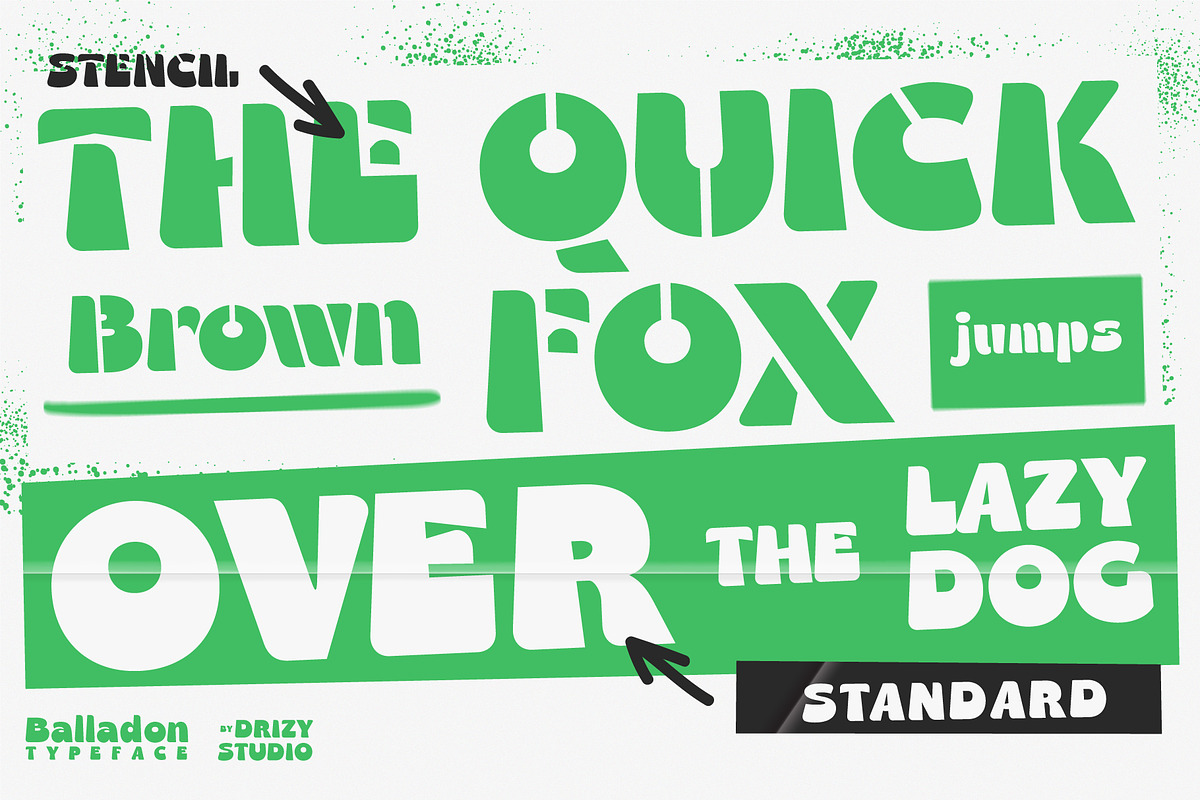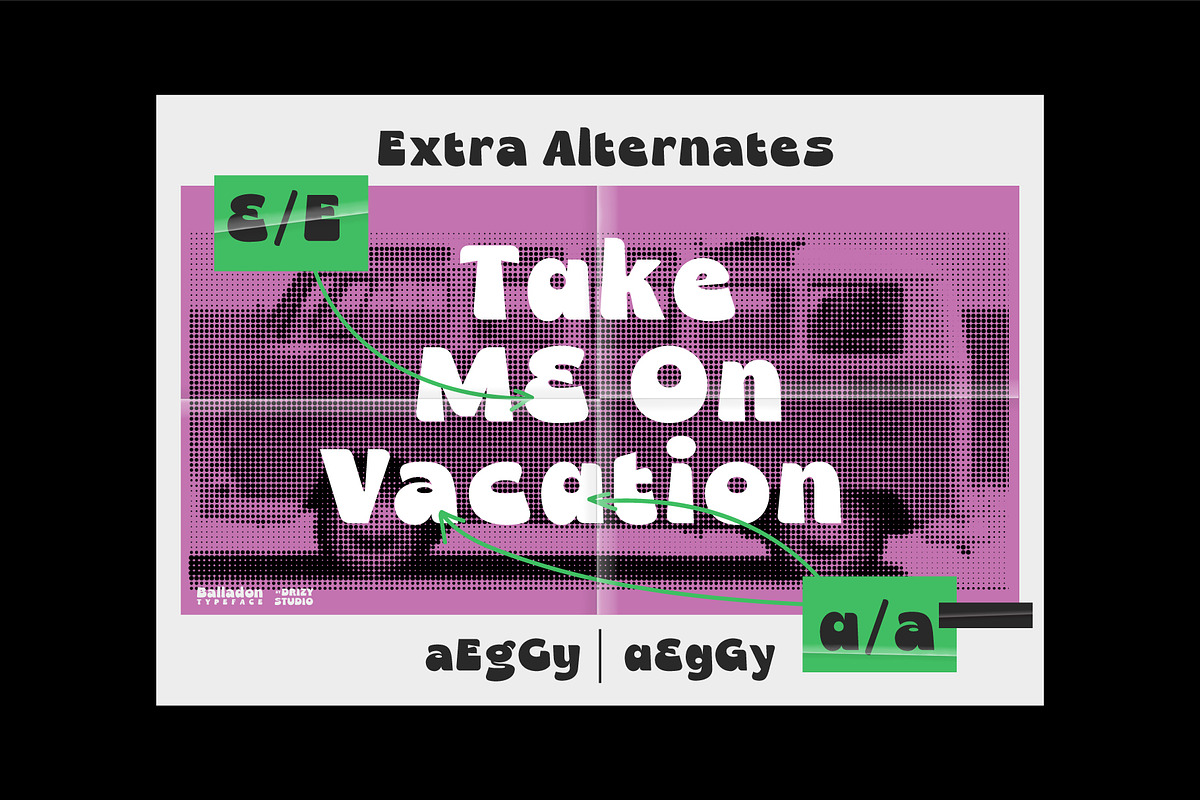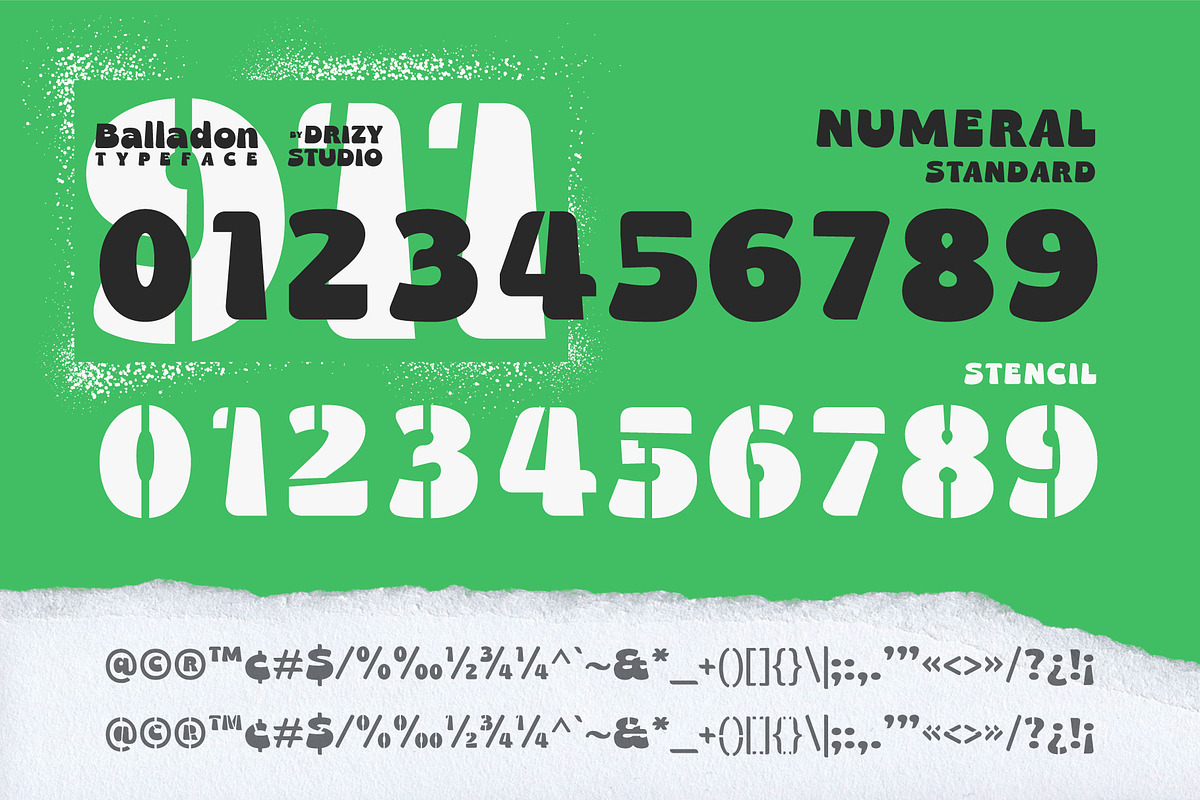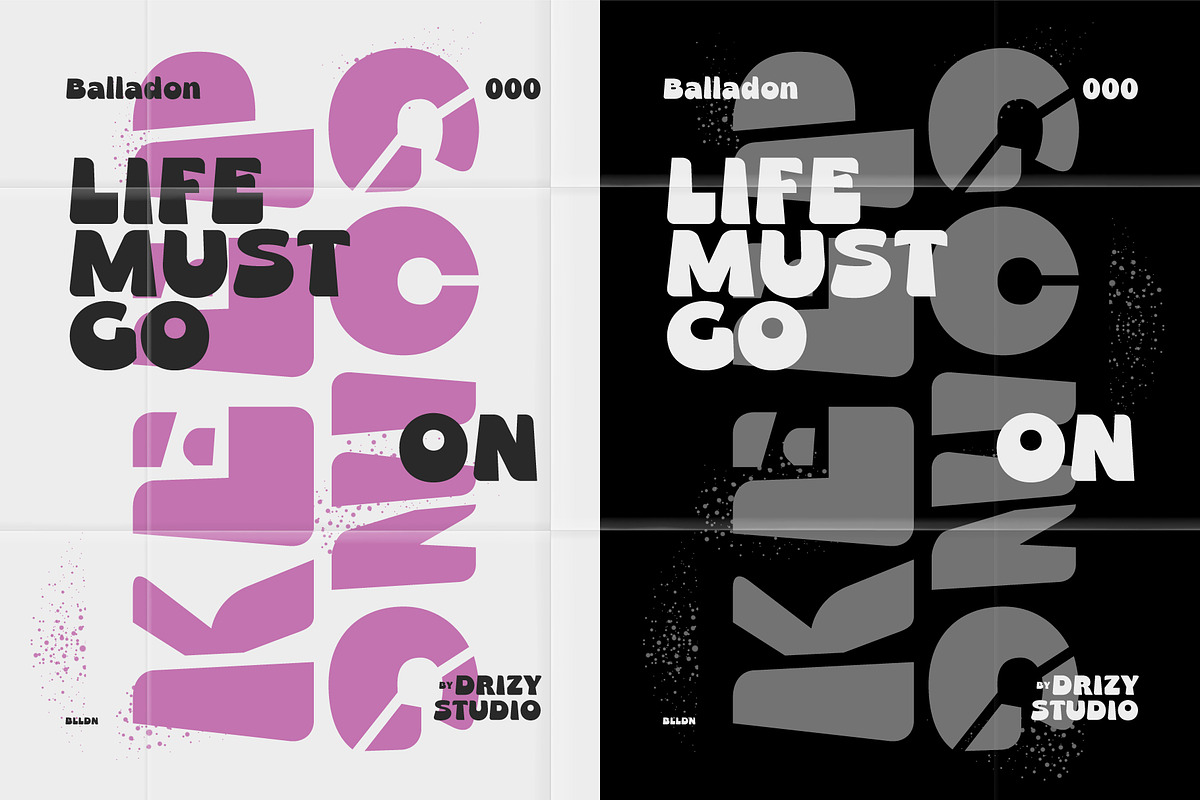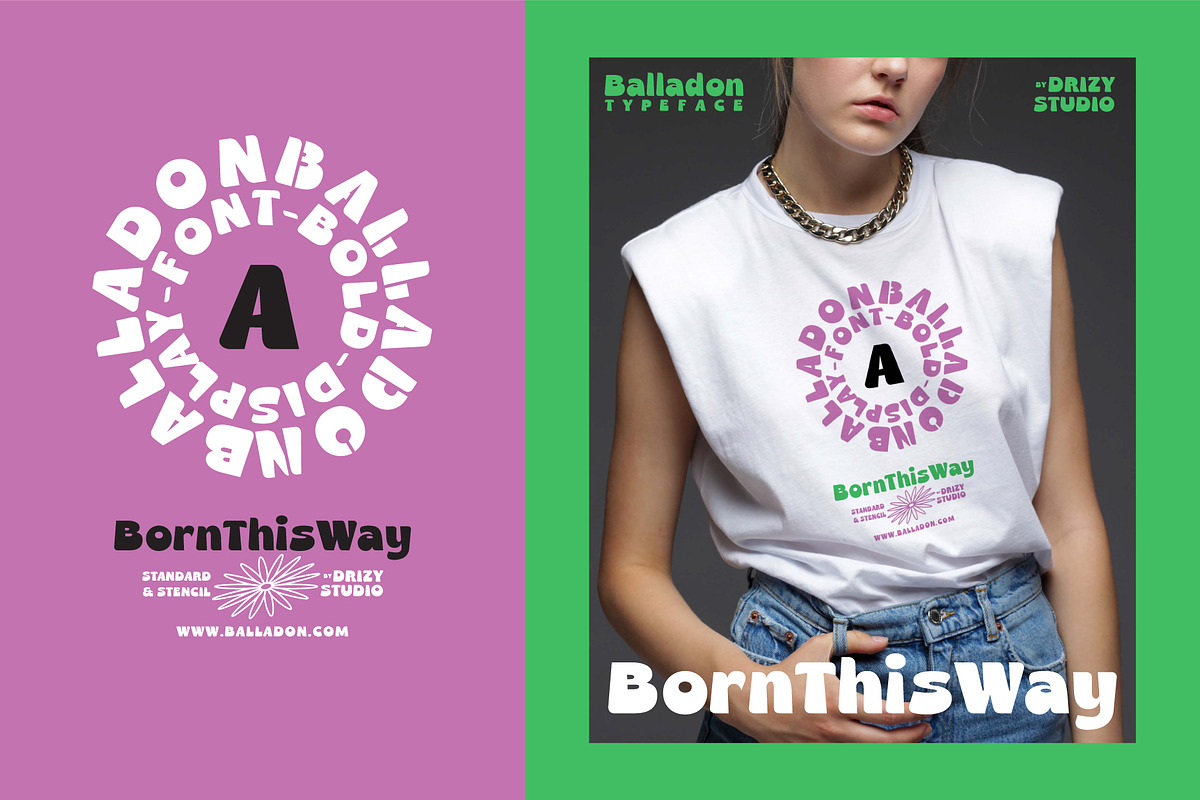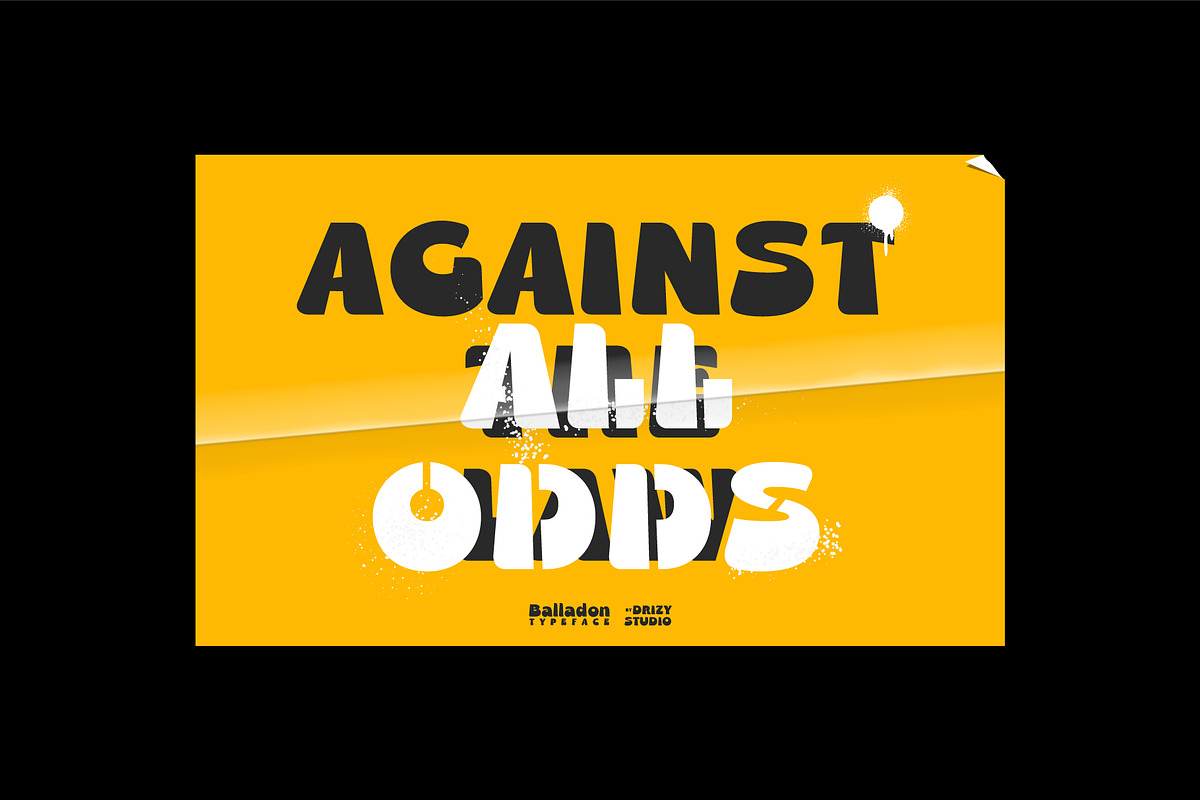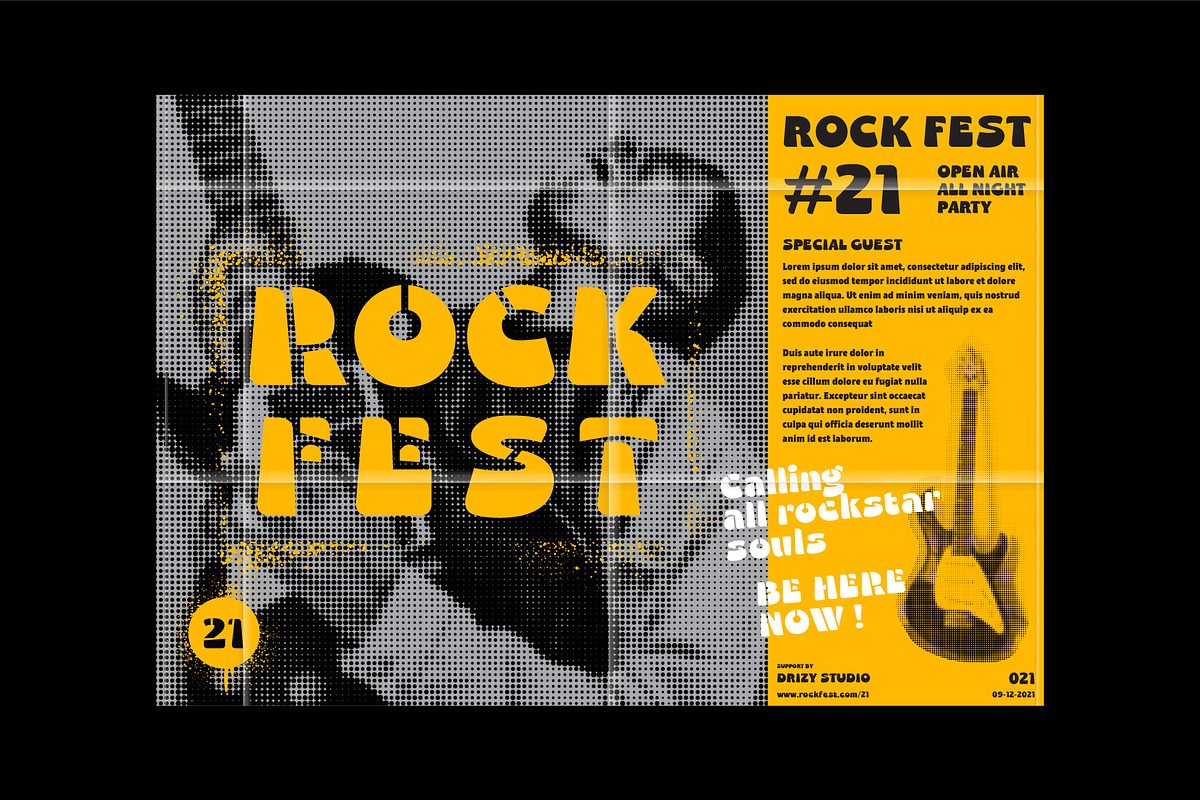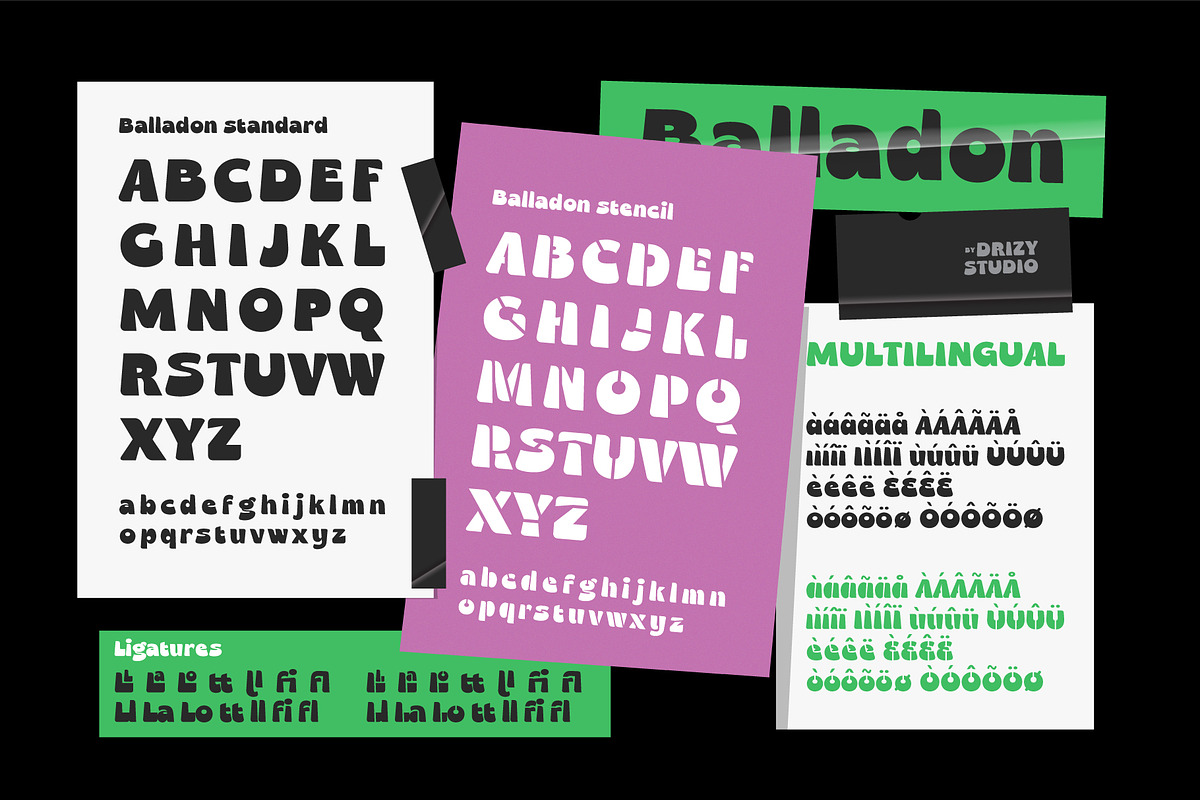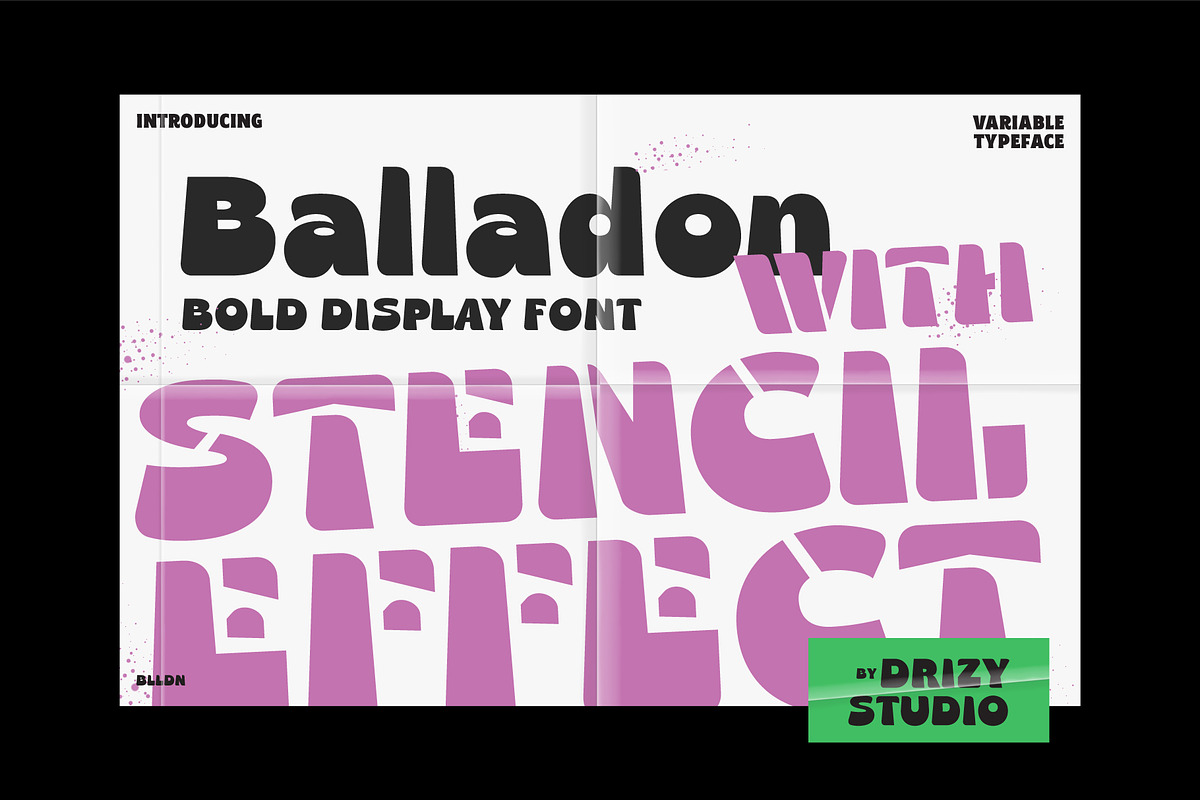
Balladon Bold Playful Display font is a special font for unique playful theme. Offering all the basic styles you will need for a successful project.
Balladon Standard & Balladon Stencil Features: